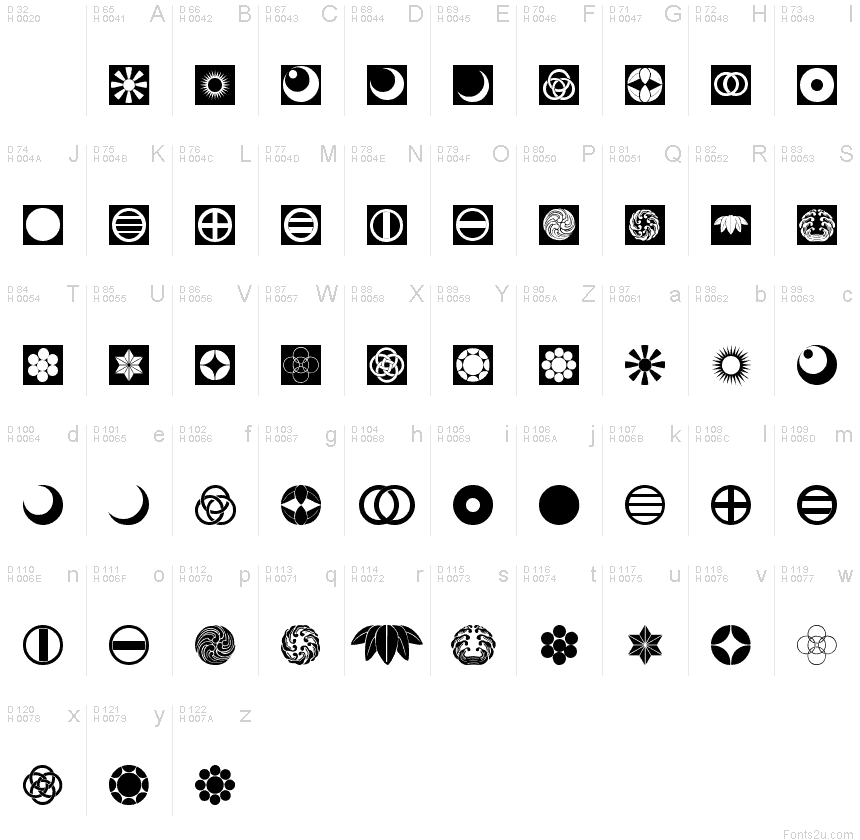
Oriental Icons IV Czcionka
Oriental Icons IV, from House of Lime, is a free ornamental dingbat font. Its geometric symbols combine circles, crescents, divided disks, and a pointed floral emblem, all drawn with crisp contours and strong symmetry.
An exhibition poster is the strongest setting for these pictorial forms, which can also build themed signage and museum program covers around a compact set of emblem-like marks. The botanical and celestial motifs also suit wellness packaging and festival merchandise, where the symbols can function as badges or repeating decorative elements rather than conventional lettering.